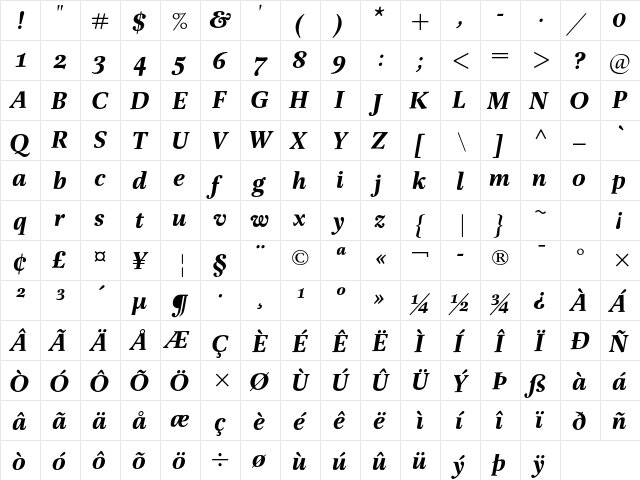
Buccardi Std Bold Italic
Design Context for Buccardi Std Typeface
Buccardi Std is a composed and adaptable typeface that performs quietly and consistently across a wide range of design contexts. The slanted form adds forward momentum and visual energy. Its bold stroke weight gives it real presence on the page.
Pro Tip: Try Buccardi Std for annotation and caption copy alongside an upright companion — the contrast in angle creates a dynamic but ordered typographic system.